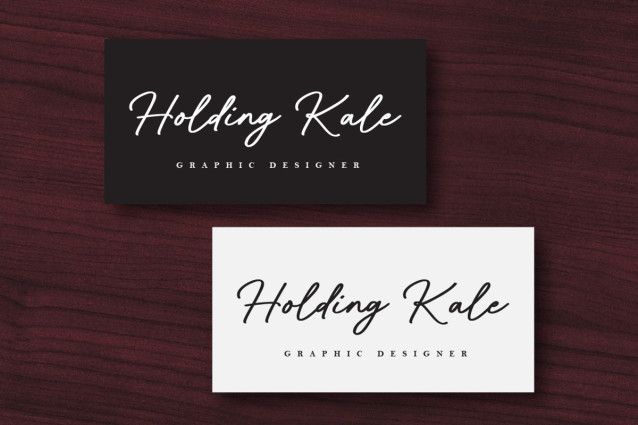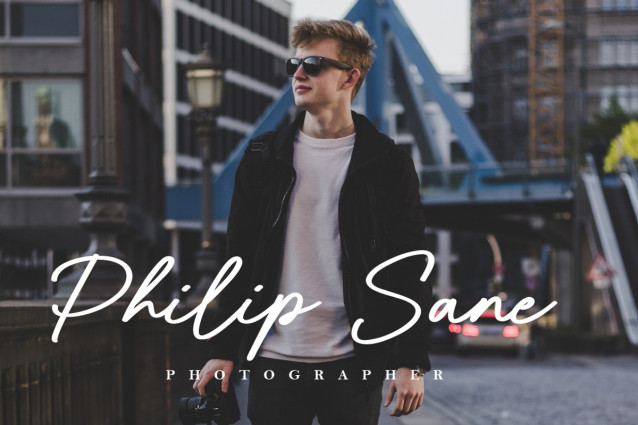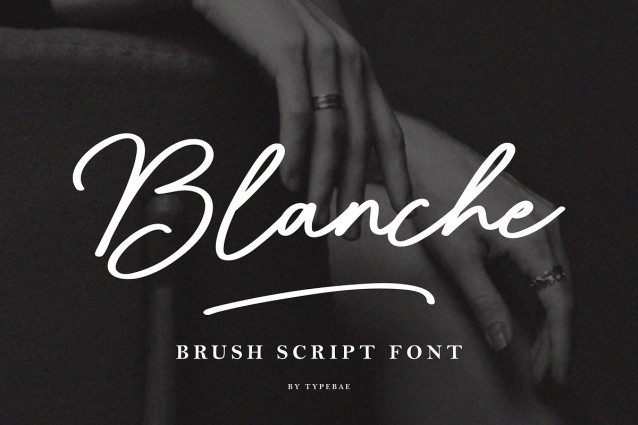
Blanche Script Font
Blanche Script Font is a stunning handwritten brush script font that exudes beauty and elegance. Blanche font is perfect for creating luxurious branding materials, wedding invitations, greeting cards, and other projects that demand a touch of handwritten charm.